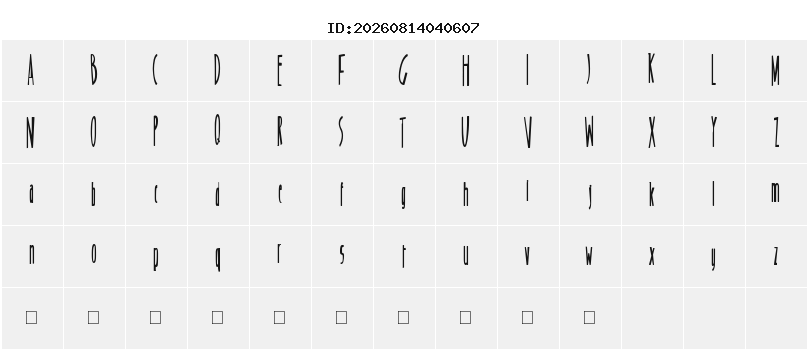
Sweet Blur Preview
• Font Name: Sweet Blur
About Sweet Blur.ttf
Sweet Blur.ttf is a modern, elegant sans-serif font designed for ultimate readability and visual harmony. Perfect for branding, headlines, web design, and print materials.